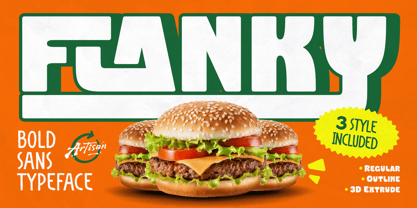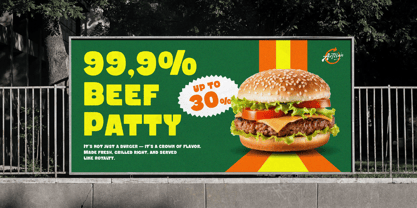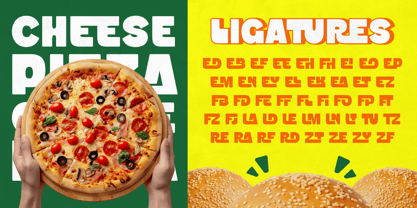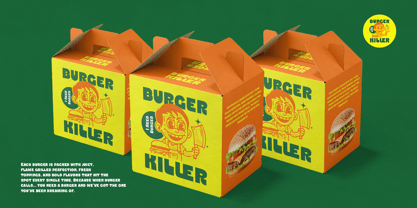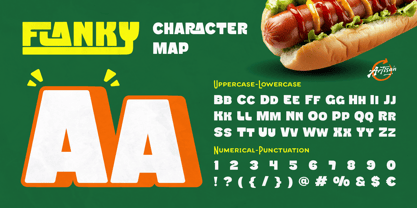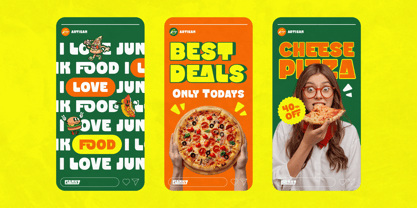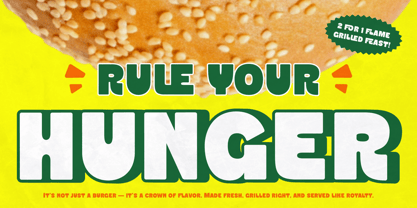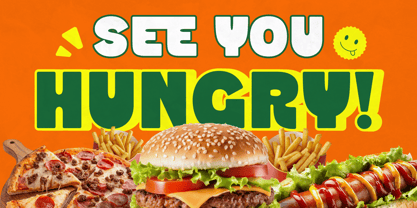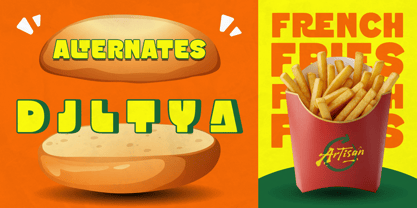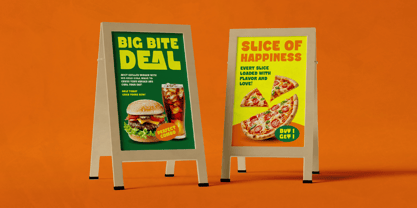
Flanky
The Flanky Font Family was designed by Meidy Meichico and published by Artisan Themes. Flanky contains 3 styles and family package options. More about this family
Meet Flanky, your new go-to font for everything bold, tasty, and full of life! 🍔 It’s got that confident shape and friendly curves that make any design look juicy — just like a fresh burger hot off the grill. Whether you’re making a poster, logo, or menu, Flanky brings that warm, feel-good energy that instantly grabs attention. Comes in 3 delicious styles — Regular, Outline, and 3D Extrude — so you can mix and match for extra flavor. Plus, it’s packed with ligatures to keep your text looking smooth and fun. Perfect for food brands, retro ads, fast-food packaging, or anything that needs a bold and cheerful vibe. So go ahead — rule your hunger for great design with Flanky! Features: A - Z set (Uppercase & Lowercase), Number, Alternates, Ligatures, Punctuation, Multilingual